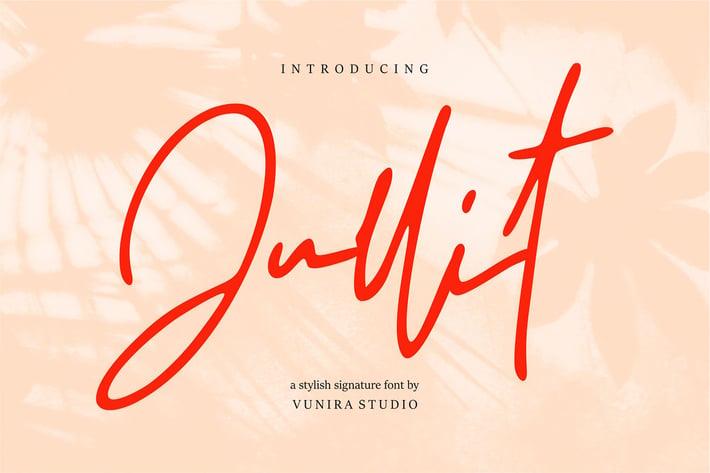
Jullit | Stylish Signature Font
Jullit | Stylish Signature Font with a calligraphy style, So beautiful on invitation like greeting cards, branding materials, business cards, quotes, posters, and more!